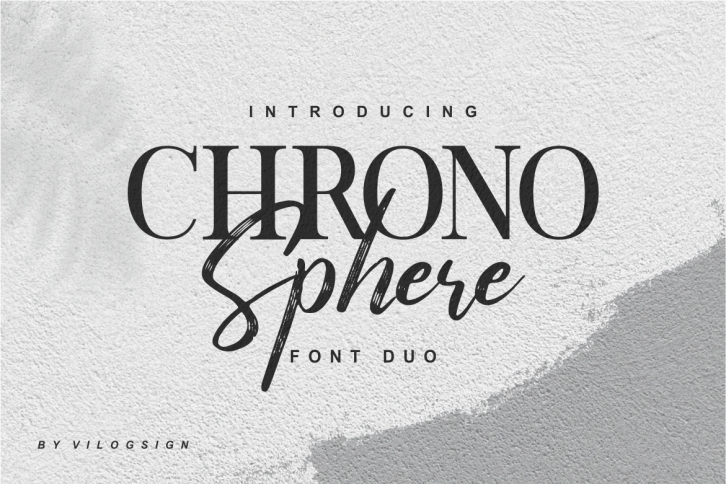
Chrono Sphere Duo is a gorgeous font that was realeased on December 8, 2019. The font can be used in many style contexts and design environments. Perfect for invitations, magazines, websites, logos, and more! It was designed by Vilogsign and the file size is 8.35 MB. Thanks for checking out this font!